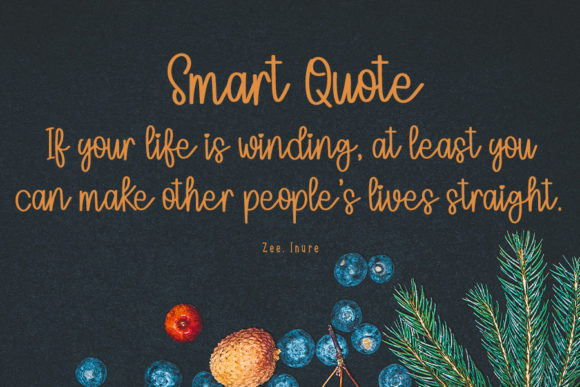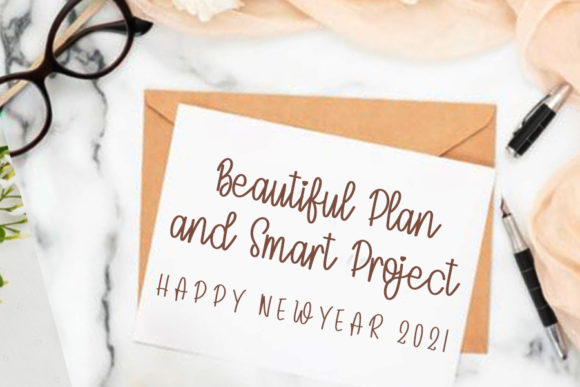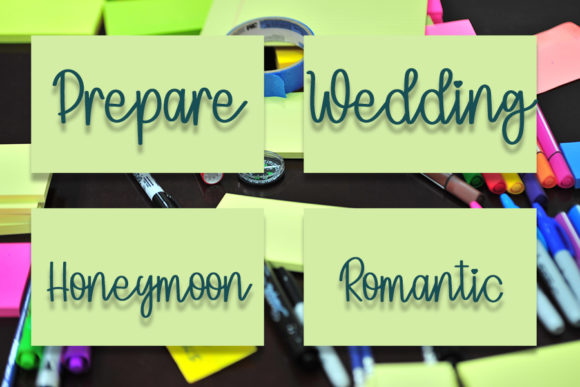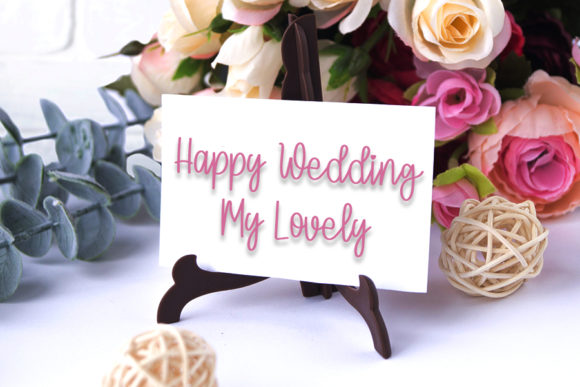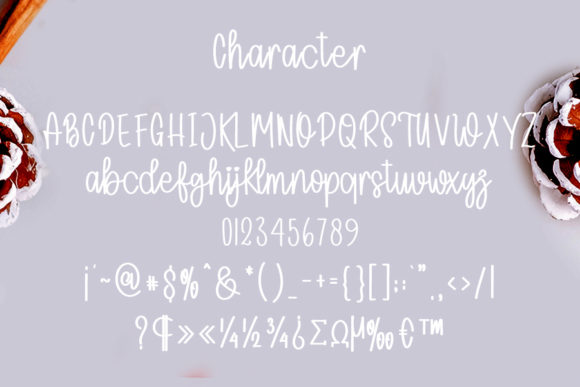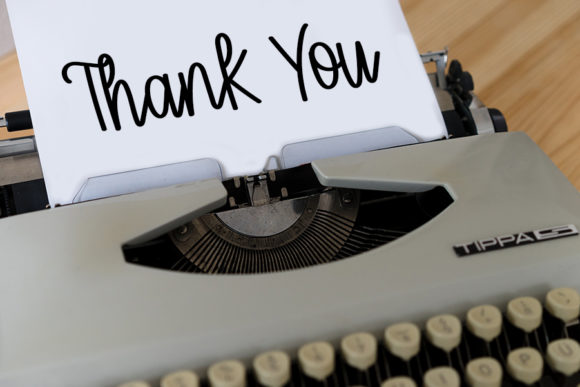
Discover the Elegance of Angglea Wedding Font: A Delicate Handwritten Masterpiece
Are you a designer or crafter looking for the perfect font to add a touch of elegance to your projects? Look no further than the Angglea Wedding font. This delicate and elegant handwritten font is sure to capture your heart with its distinct and well-rounded letters, making it a masterpiece for any design project.
The Characteristics of Angglea Wedding Font
Angglea Wedding font is a beautifully crafted handwritten font that exudes sophistication and charm. Its unique characteristics include:
- Delicate and Elegant: The font features delicate and elegant strokes that give it a romantic and whimsical feel.
- Distinct and Well-Rounded Letters: Each letter is carefully crafted with distinct and well-rounded shapes, making it easy to read and recognize.
- Versatile Style: Angglea Wedding font is incredibly versatile, making it perfect for a wide range of design projects, from wedding invitations to branding and packaging.
Why Fall in Love with Angglea Wedding Font?
There are many reasons why designers and crafters will fall in love with Angglea Wedding font. Here are just a few:
- Unique and Eye-Catching: The font’s unique and eye-catching design makes it perfect for creating spectacular designs that stand out from the crowd.
- Easy to Read: Despite its delicate and elegant nature, Angglea Wedding font is easy to read, making it perfect for body text and headlines.
- Highly Versatile: The font’s versatility makes it suitable for a wide range of design projects, from formal to informal.
Uses of Angglea Wedding Font
Angglea Wedding font is perfect for a variety of design projects, including:
- Wedding Invitations: Create beautiful and elegant wedding invitations that set the tone for the big day.
- Branding and Packaging: Use Angglea Wedding font to create stunning brand identities and packaging designs that stand out.
- Stationery and Cards: Add a touch of elegance to your stationery and cards with this beautiful font.
- Signage and Displays: Use Angglea Wedding font to create eye-catching signage and displays that grab attention.
Tips for Using Angglea Wedding Font
Here are some tips for getting the most out of Angglea Wedding font:
- Pair with Other Fonts: Pair Angglea Wedding font with other fonts to create a unique and interesting contrast.
- Use for Headlines and Titles: Use Angglea Wedding font for headlines and titles to add a touch of elegance and sophistication.
In conclusion, Angglea Wedding font is a delicate and elegant handwritten font that is sure to capture your heart. Its distinct and well-rounded letters make it a masterpiece for any design project. With its incredibly versatile style, Angglea Wedding font is perfect for designers and crafters looking to add a touch of elegance to their projects. So why not fall in love with Angglea Wedding font and use it to create spectacular designs that stand out from the crowd?
- Delicate and elegant handwritten font
- Distinct and well-rounded letters
- Incredibly versatile style
- Perfect for wedding invitations, branding, packaging, stationery, and more
Get ready to fall in love with Angglea Wedding font and take your designs to the next level!